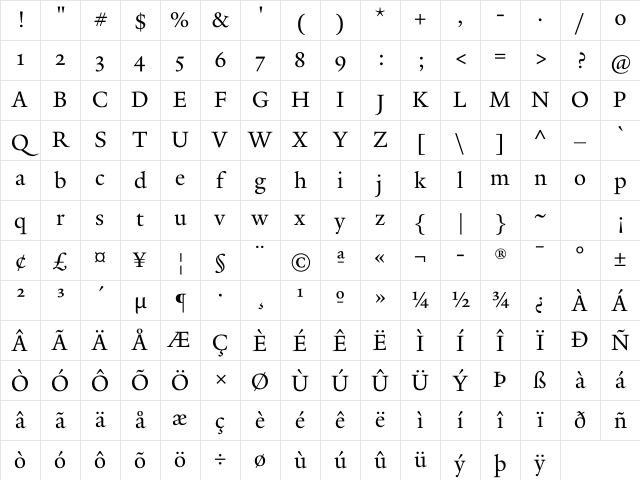
YaleCFF Regular
Design Context for YaleCFF
YaleCFF is a composed and adaptable typeface that performs quietly and consistently across a wide range of design contexts.
Pro Tip: Use YaleCFF in both headline and body roles to test its range before committing to a single application.